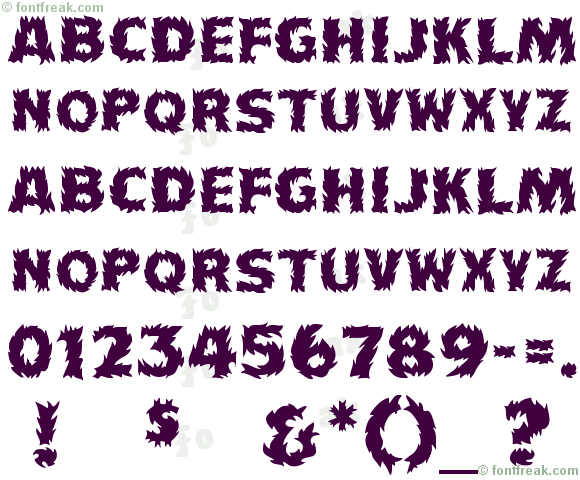
Flames
About Flames
The Flames font, crafted by Richard W. Mueller in 1993, embodies a unique decorative style that captures the essence of fire through its expressive design. This display font features jagged edges and irregular stroke weights that mimic the flickering and unpredictable nature of flames. The bold, dynamic characters create a striking visual impact, making it a perfect choice for projects that require attention-grabbing typography. The spacing between the letters adds a layer of energy, reinforcing the fiery theme that defines this typeface.
Ideal for a variety of creative applications, the Flames font is particularly well-suited for movie posters, where its dramatic style can evoke excitement and intrigue. It's also a fantastic pick for Halloween-themed invitations, capturing the spirit of the season with its fiery aesthetic. Additionally, restaurant menus featuring spicy dishes can benefit from this font's bold personality, helping to convey a sense of heat and flavor. Graphic designers and content creators looking to add a touch of flair to their projects will find this font invaluable.
What sets the Flames font apart is its ability to convey emotion and movement through typography. Its distinctive, fiery design not only captures the viewer's attention but also evokes a sense of passion and energy, making it a standout choice for any project. For those interested in exploring this unique typeface, a Flames font free download is available, allowing you to incorporate this exceptional style into your work effortlessly.